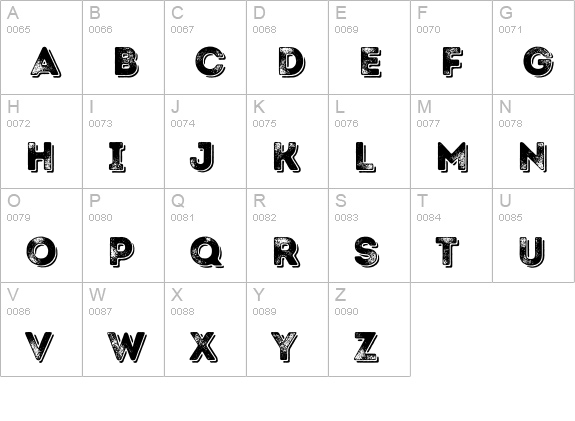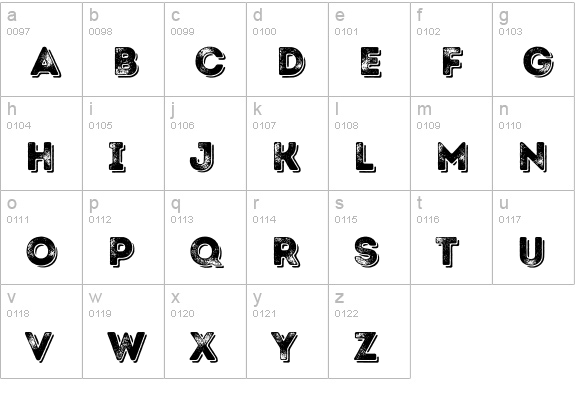
Intro Rust G Base Shade font is a modern and stylish typeface that exudes a sense of sophistication and elegance. With its unique design and intricate details, this font is perfect for a wide range of design projects, from logos to branding to packaging. The Base Shade variant of Intro Rust G features subtle shading and depth, adding a sense of dimension to your text. What makes Intro Rust G Base Shade font even more appealing is the fact that it is freely available to download at FontsMarket.com. This means that you can easily access this high-quality font without having to spend a dime, making it a fantastic choice for designers on a budget. Whether you're working on a personal project or a client commission, Intro Rust G Base Shade font is sure to make a lasting impression with its unique style and versatility. Download it today and elevate your designs to the next level.